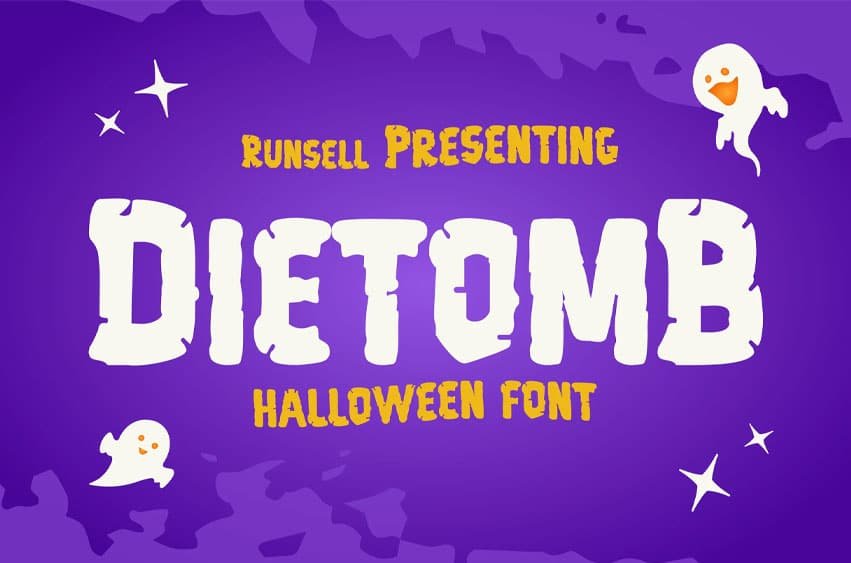
Dietomb Font
is a playful Halloween display font packed with chunky shapes, uneven edges, and cheerful monster energy. Its bold presence works wonderfully for a creepy movie title, scary poster, spooky party decoration, horror-themed packaging, children’s merchandise, costume events, and entertaining seasonal graphics.
Dietomb turns an evil world of mystery and death into something amusing and approachable. From a silly witch adventure and colorful witchy branding to gothic cartoons, thriller promotions, ghost stories, and haunted games, this font adds mischievous personality without becoming overly frightening.
Spooky Letters, Killer Style. Make your Halloween designs scream with our hauntingly creative font.